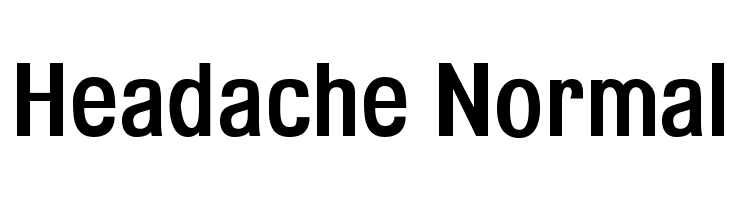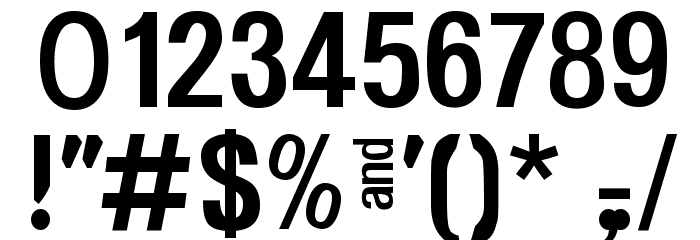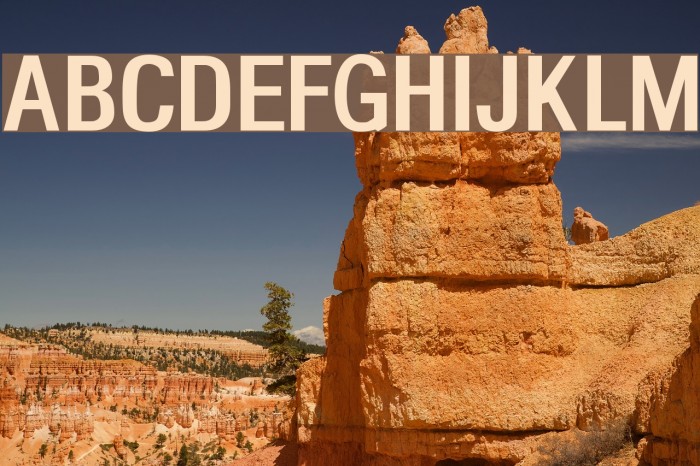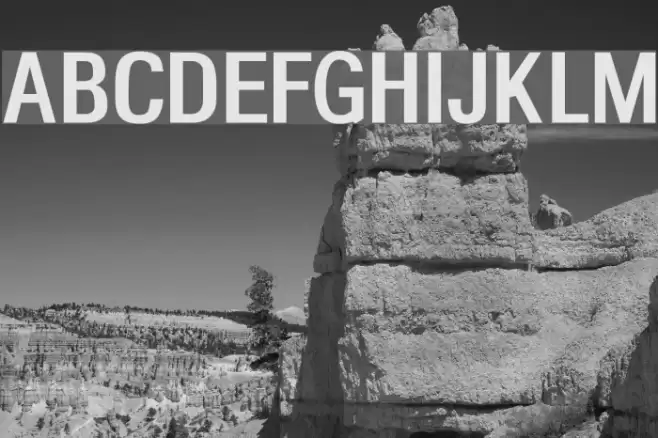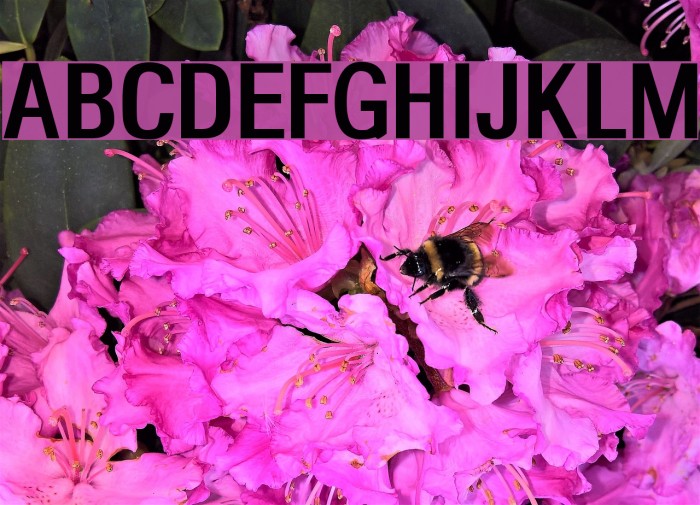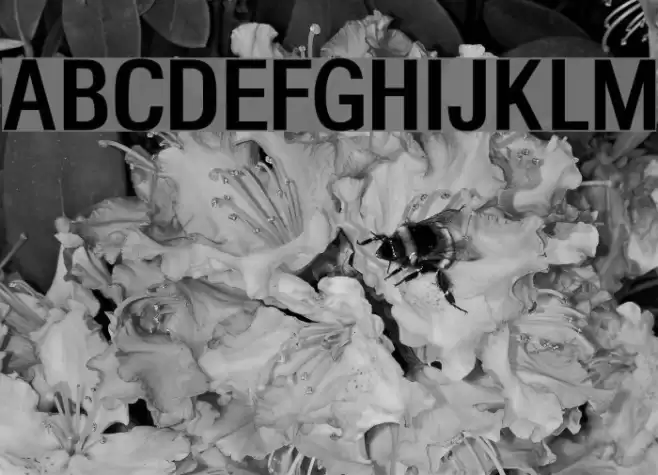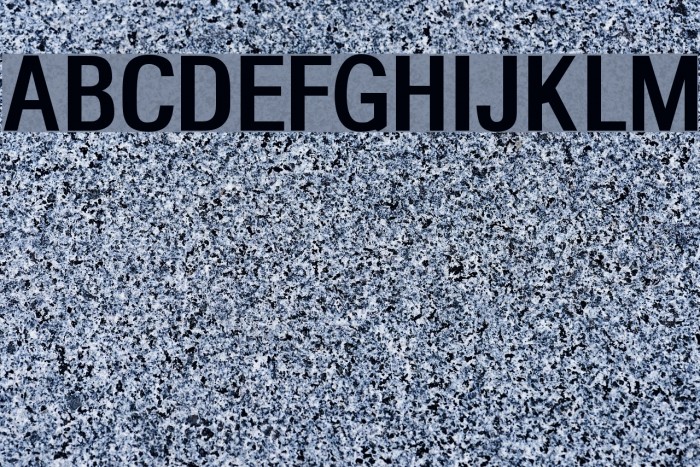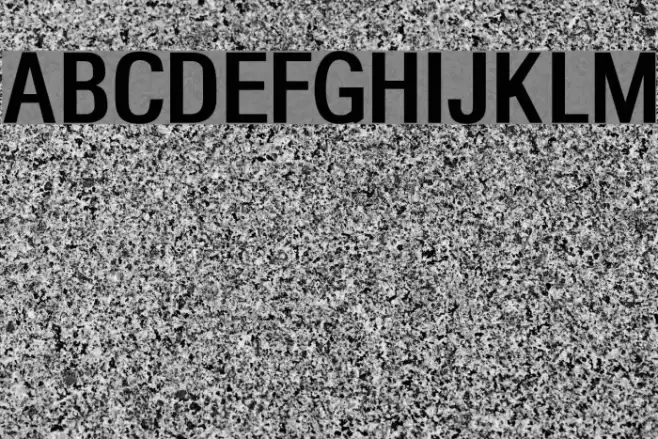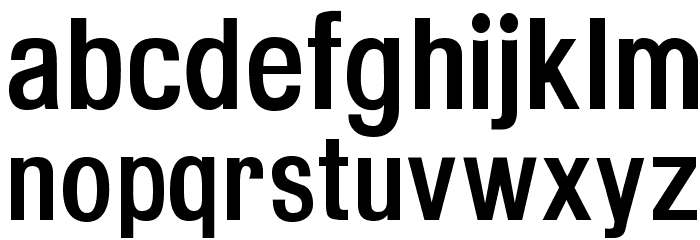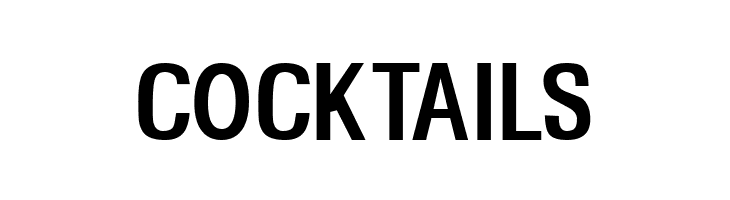
Headache Normal Font
Headache Normal Description
This font features bold, geometric letterforms with a modern and clean aesthetic. The uppercase letters are uniform in height, while the lowercase letters maintain a consistent x-height, contributing to a balanced and cohesive appearance. The numerals are clear and legible, matching the overall style of the alphabet. Special characters are distinct and well-defined, ensuring versatility in various design applications. The strokes are even and consistent, providing a solid and robust look. This font is suitable for a wide range of uses, from digital to print media.
| Use Case | Headlines, Logos, Branding |
| Proposed Projects | Ideal for branding, advertising, headlines, and digital media projects. |